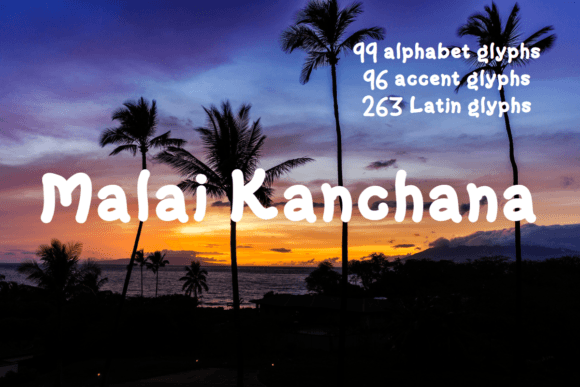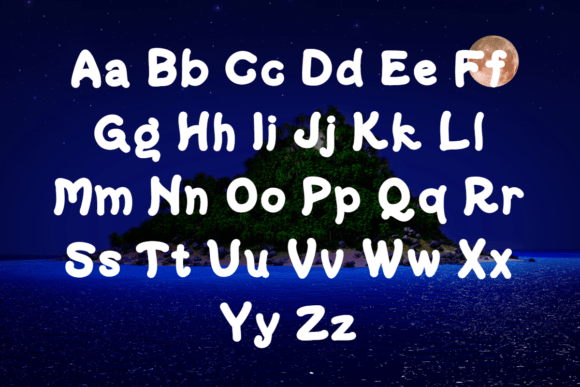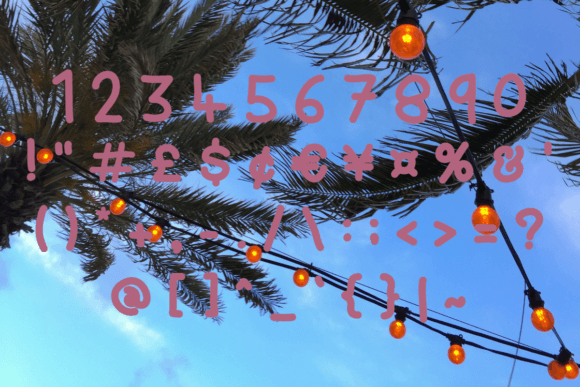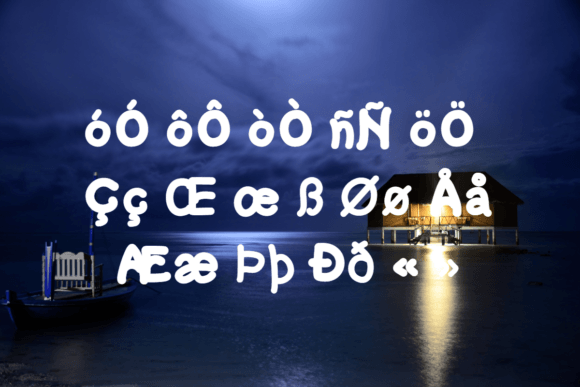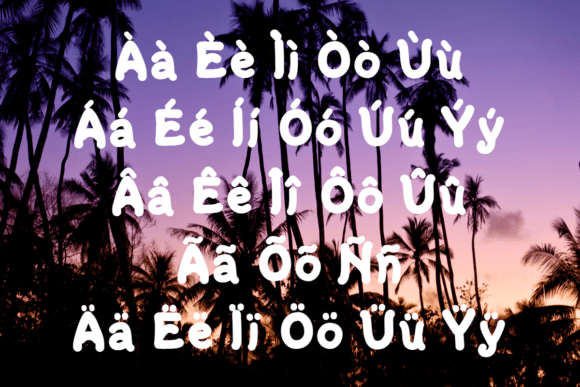
About Malai Kanchana
Malai means garland of flowers, and Kanchana means golden. I envisioned tropical nights for this font, a nice bold feel. Contains 99 alphabet glyphs, 96 accent glyphs and 263 Latin glyphs. Perfect for those projects where you need a bold standout typeface.